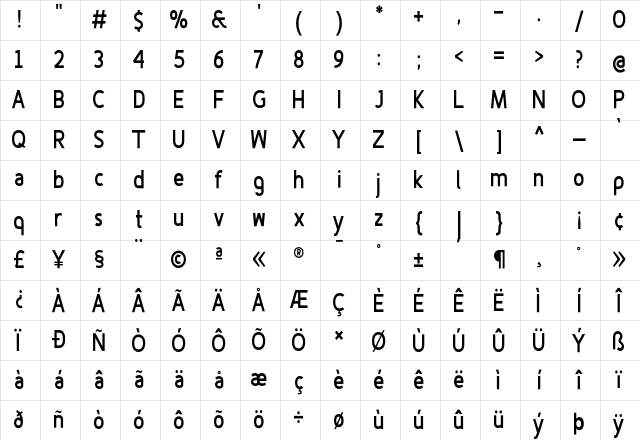
Complete Fineness Pro Black Condensed glyph index. Displaying only characters natively supported by Fineness Pro Black Condensed font.
Fineness Pro Black is a composed and adaptable typeface that performs quietly and consistently across a wide range of design contexts. Its narrow stance lets it pack a punch even in space-constrained designs.